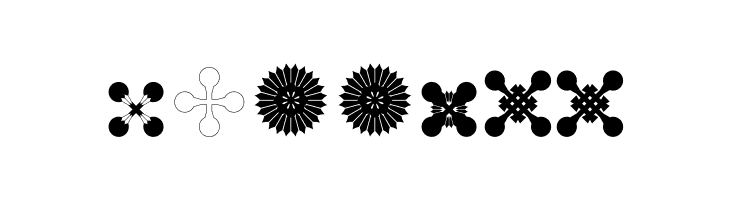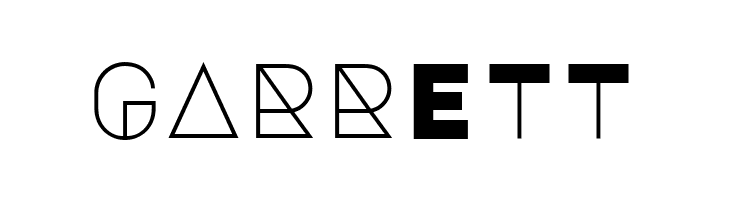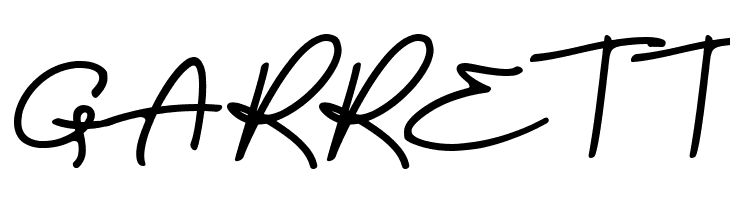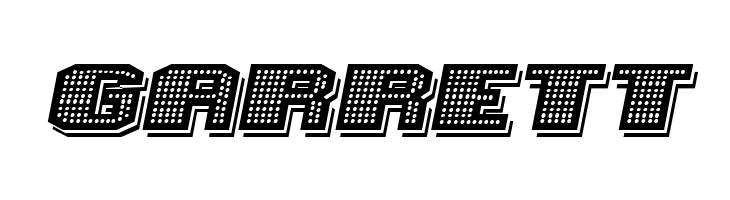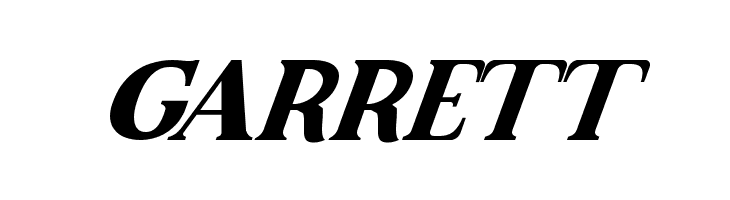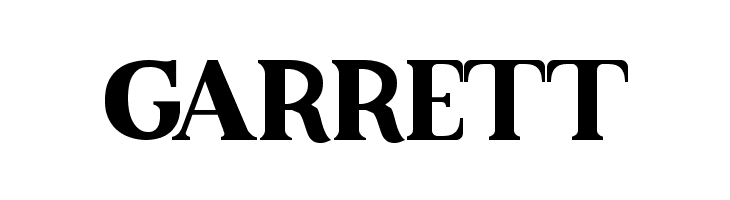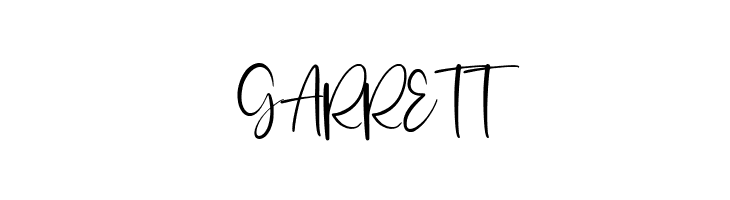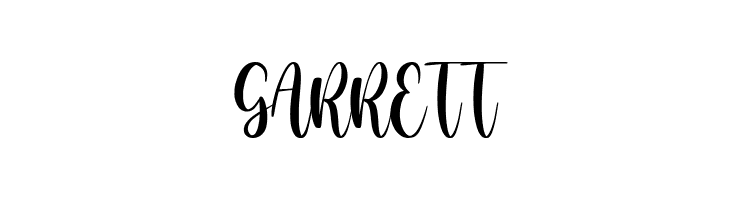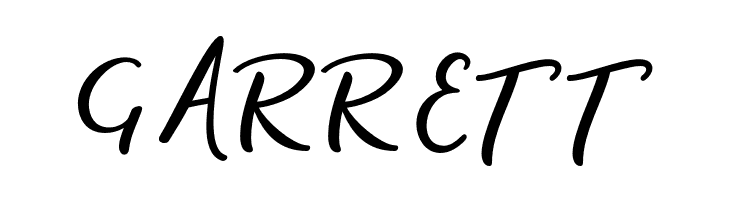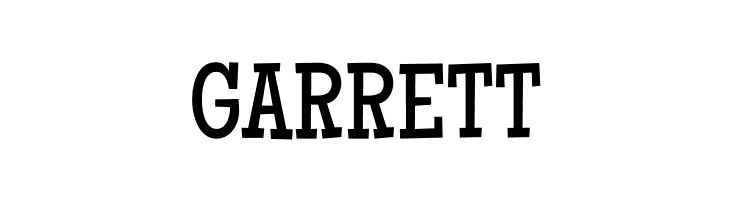
A bold, italicized font with a neon-like dotted shadow effect.
A flowing, cursive font with elegant, connected strokes and a playful yet sophisticated style.
A playful, casual handwritten font with smooth, flowing lines.
A fluid and elegant script font with medium contrast and dynamic letterforms.
A whimsical, flowing script font with elegant, playful curves.
A playful, bold font with rounded, bubbly characters.
A bold, playful font with a three-dimensional outline and shadow effect.
A bold, playful font with rounded, bubble-like characters.
A bold, playful font with a three-dimensional outline and shadow effect.
A bold, high-contrast serif font with elegant, pronounced serifs.
A playful and modern font with tall, narrow letters and consistent stroke width.
A lively, playful handwritten font with fluid strokes and a casual elegance.
A playful, handwritten font with tall, narrow letters and a casual, friendly style.
A bold, flowing script font with elegant curves and dynamic strokes.
A bold, playful font with vintage charm and approachable characters.
An eclectic and artistic display font with diverse, whimsical character designs.
A decorative, mail art-inspired graphic and text stamp collection with varied styles.
A distressed, vintage serif font with a rubber stamp texture.
A decorative, mixed-style font inspired by mail art and stamp graphics.
A bold, dynamic brush script font with energetic strokes and a hand-painted look.
Ornamental dingbat font with floral and geometric motifs.
A playful, handwritten script with smooth, flowing lines and elegant curves.
A geometric, monospaced font with bold, decorative uppercase letters and clean lowercase characters.
A casual, handwritten font with fluid and natural strokes.
A playful, handwritten font with bold strokes and a casual style.
A bold, geometric font with rounded edges and a modern, industrial style.
An artistic script font with flowing, interconnected letterforms and calligraphic elegance.
A bold, high-contrast serif font with a classic yet modern appeal.
An elegant, italic serif font with smooth, flowing lines and pronounced serifs.